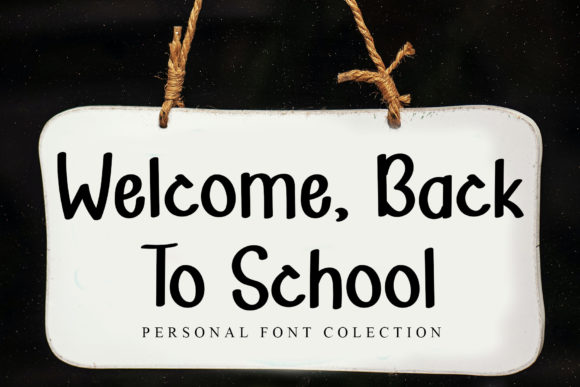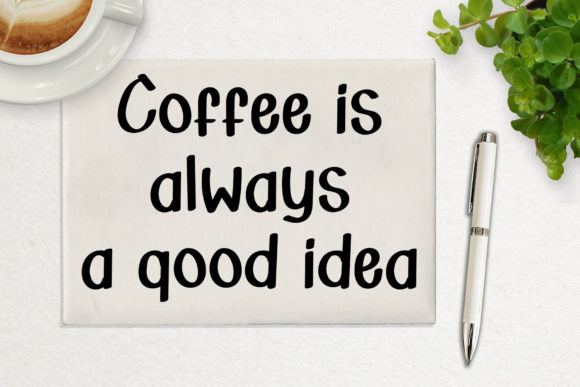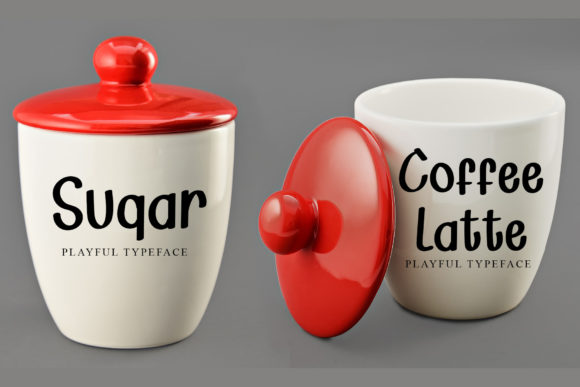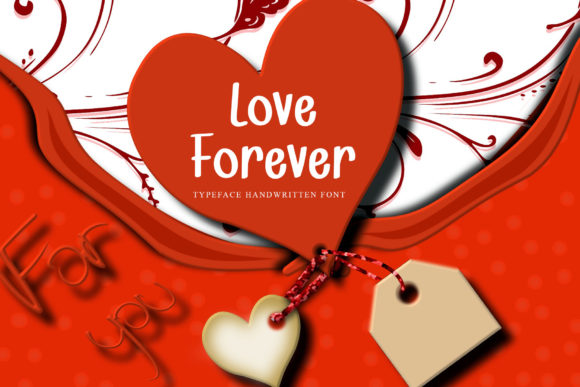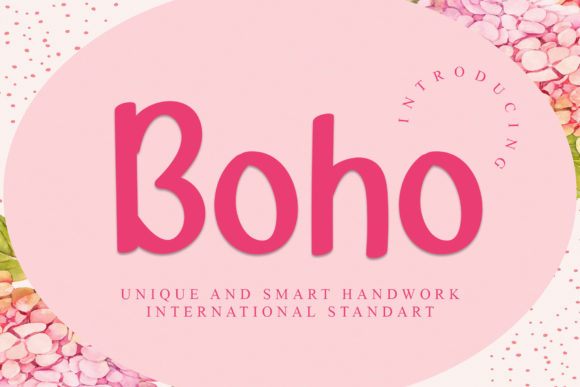
The Boho Font: A Unique and Bold Display Font for Your Creative Projects
Have you ever been working on a design project, and suddenly, you’re stuck on finding the perfect font? I recall a wedding invitation project where I struggled to find a font that captured the couple’s free-spirited and eclectic vibe. That’s when I discovered the Boho font, a game-changer for designers, crafters, and creative hobbyists alike.
The Boho font is a unique and bold display font that looks great on wedding invitations, greeting cards, billboards, logos, business cards, and any other design that requires a personal touch. Its varied baseline, created with a natural, hand-made touch, makes it perfect for adding a touch of personality to your designs.
An Honest Review of Boho Font
What I Love About Boho Font
- ✨ Unique and bold design that adds a personal touch to any project
- ✅ Hand-made feel with a varied baseline, giving it a natural and eclectic look
- 💥 Perfect for display text, titles, and headings
- 🎉 Works well with a variety of design styles, from rustic to modern
While the Boho font is amazing, there are a few things to keep in mind:
- 🤔 May not be suitable for body text or long paragraphs, as it’s a display font
- ⚠️ Some characters may not be suitable for use in all caps, due to the font’s design
The Backstory of Boho Font
The Boho font was designed with the intention of creating a unique and bold display font that captures the essence of a free-spirited and eclectic lifestyle. The designer’s inspiration came from a mix of traditional and modern typography, with a focus on creating a hand-made feel that’s perfect for adding a personal touch to your designs.
Q: What is the Boho font best used for?
A: The Boho font is best used for display text, titles, and headings, particularly in designs that require a personal touch, such as wedding invitations, greeting cards, and logos.
Q: Is the Boho font suitable for body text?
A: No, the Boho font is a display font and may not be suitable for body text or long paragraphs. It’s best used for titles, headings, and short text elements.